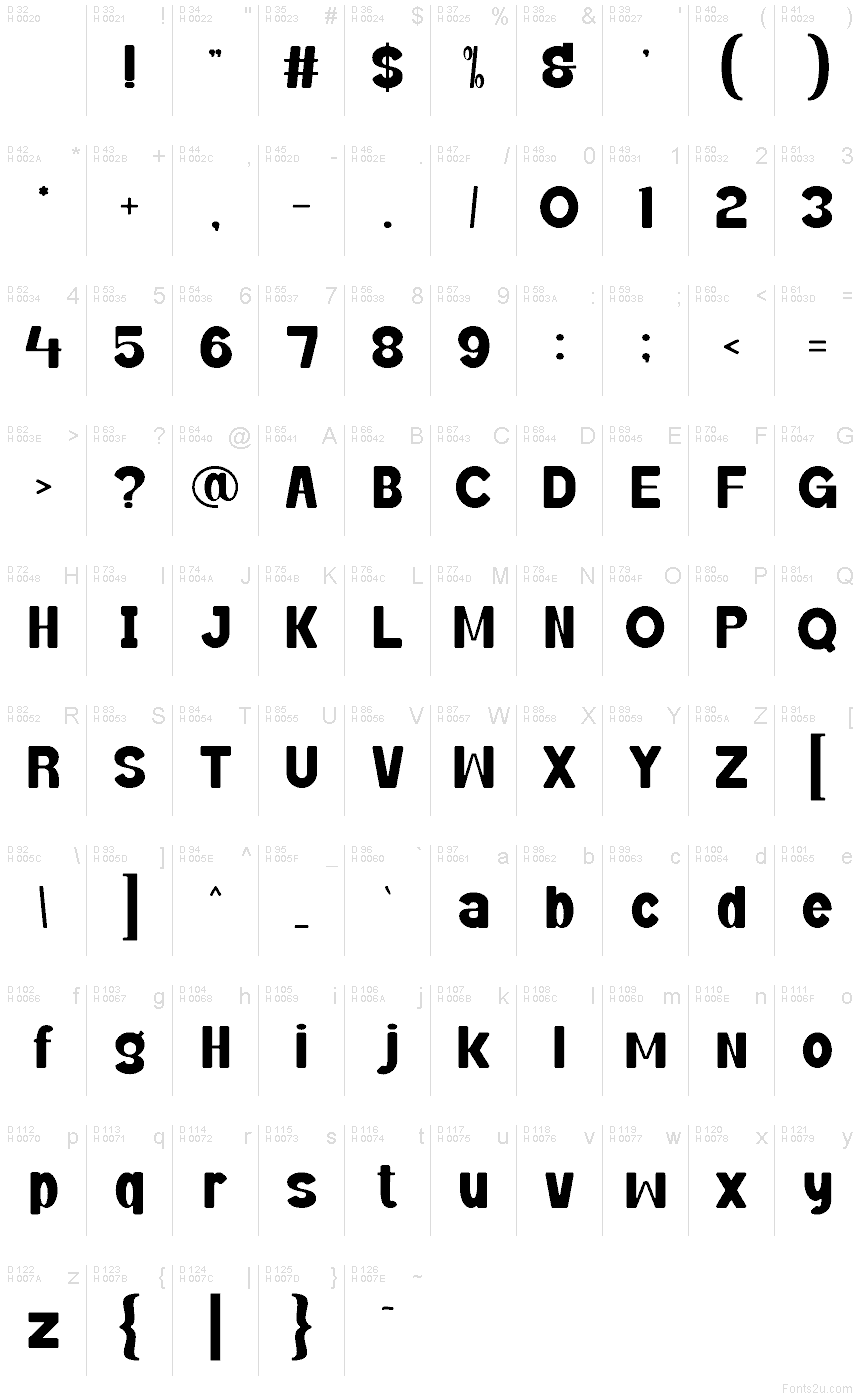
Gaseno Rounded
Gaseno Rounded font by Gilang Ternadho is a free rounded sans serif typeface with big, inky curves and a surprisingly punchy presence. The letters feel soft to the touch—thick strokes, pillowy corners, and snug spacing—yet the forms stay clean and easy to read. There’s a subtle bounce in the rhythm that makes words look lively without turning goofy, giving Gaseno its own friendly-but-confident voice.
Using Gaseno Rounded, you get a chunky headline style that shines on packaging, kids’ products, game titles, social posts, posters, and bold logo lockups. This free font is especially strong at large sizes, where its smooth edges and dense color really pop; for longer text, pair it with a simple geometric sans in a lighter weight to keep things balanced and legible.